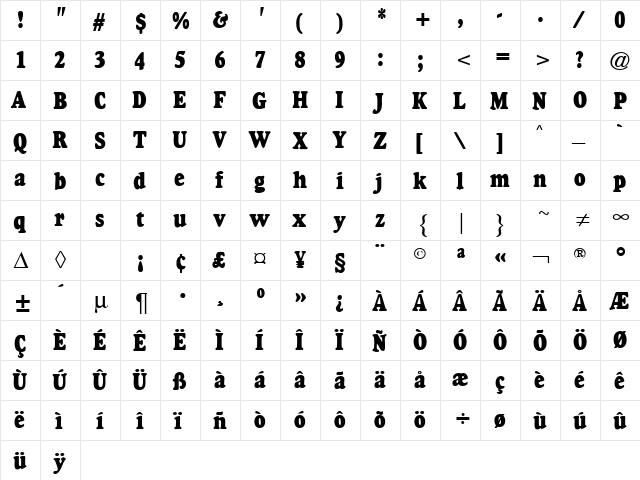
GoudyHeavyfaceCond Regular
Design Context for GoudyHeavyfaceCond Typeface
GoudyHeavyfaceCond takes a measured approach to typography — its balanced proportions and neutral character make it a reliable workhorse for both digital and print work. The condensed width makes it efficient for tight spaces without sacrificing legibility.